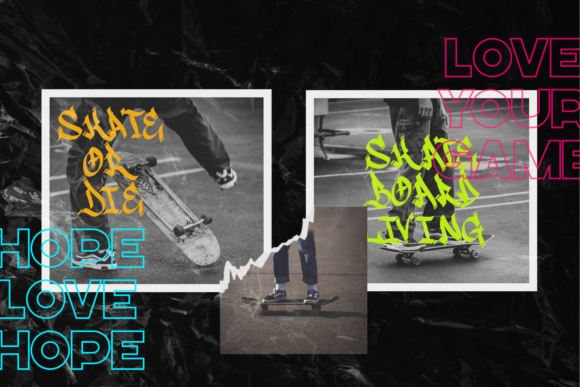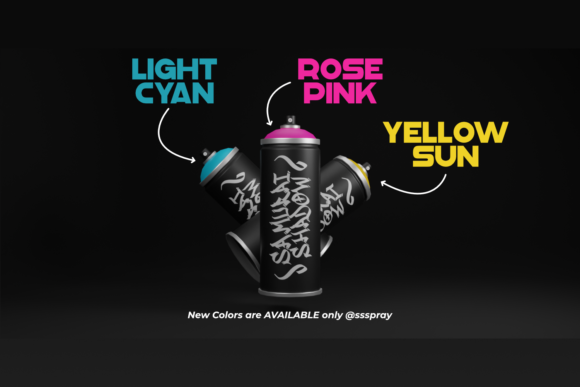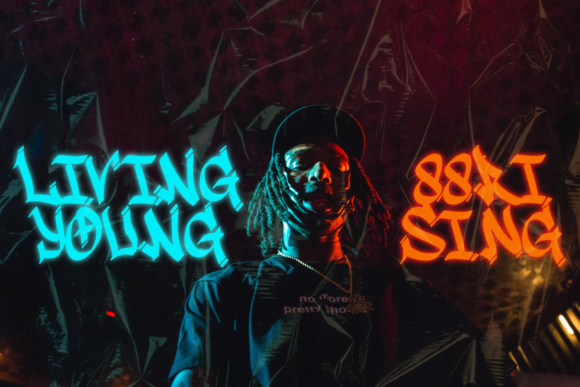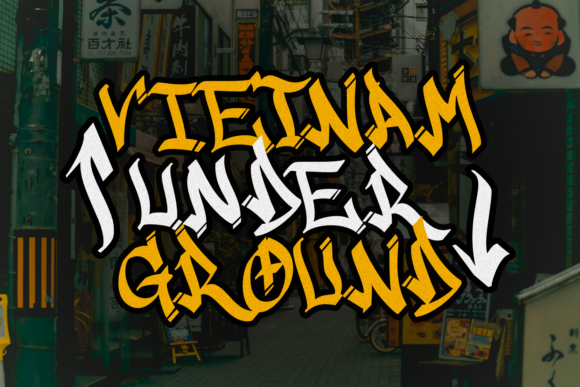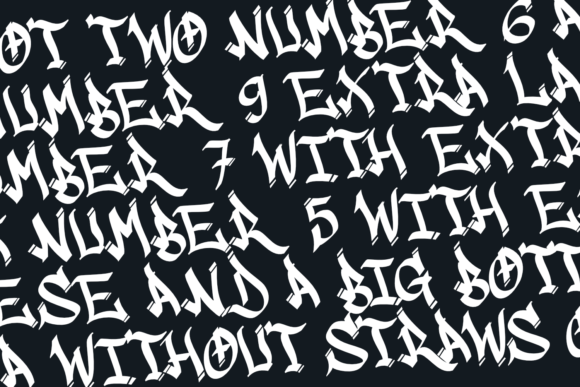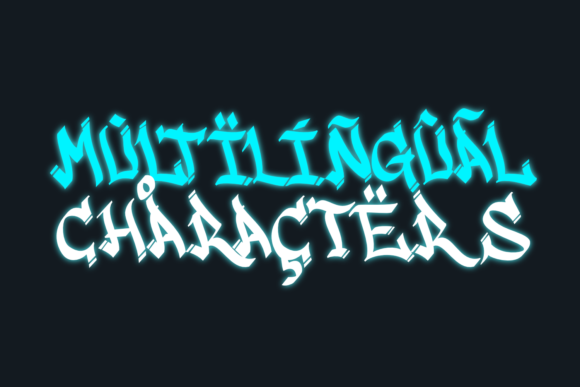
Introducing Bigwogs Font: The Ultimate Graffiti Styled Display Font
Are you tired of using the same old fonts for your designs? Look no further! Bigwogs Font is here to revolutionize your creative projects with its cool and fun graffiti styled display font. Whether you’re a designer, crafter, or simply someone who loves to get creative, Bigwogs is the perfect addition to your font collection.
What is Bigwogs Font?
Bigwogs is a unique and eye-catching font that is perfect for making a statement. Its graffiti styled design gives it a fun and playful vibe that’s sure to grab attention. The font is highly versatile and can be used for a wide range of projects, from digital designs to handmade crafts.
Bigwogs Font is a dream come true for designers and crafters alike. Its bold and edgy design makes it perfect for:
- Crafting: Add a personal touch to your handmade crafts, such as cards, scrapbook pages, and journal entries.
- Digital designing: Use Bigwogs to create stunning graphics, posters, and social media posts that are sure to stand out.
- Presentations: Add some excitement to your presentations with Bigwogs’ bold and eye-catching design.
- Greeting cards making: Create one-of-a-kind greeting cards that will leave a lasting impression.
Key Features of Bigwogs Font
So, what makes Bigwogs Font so special? Here are just a few of its key features:
- Graffiti styled design: Bigwogs’ unique design gives it a fun and playful vibe that’s sure to grab attention.
- Highly versatile: Use Bigwogs for a wide range of projects, from digital designs to handmade crafts.
- Easy to read: Despite its bold design, Bigwogs is surprisingly easy to read, making it perfect for use in a variety of contexts.
Tips for Using Bigwogs Font
Now that you’ve got Bigwogs Font, here are a few tips for getting the most out of it:
- Experiment with colors: Bigwogs looks great in a variety of colors, so don’t be afraid to get creative and try out different color schemes.
- Mix and match: Combine Bigwogs with other fonts to create unique and eye-catching designs.
- Use it sparingly: Bigwogs is a bold font, so use it sparingly to avoid overwhelming your design.
In conclusion, Bigwogs Font is a must-have for designers and crafters looking to add a little excitement to their projects. Its unique graffiti styled design, versatility, and ease of use make it the perfect addition to any font collection. So why wait? Download Bigwogs Font today and start creating stunning designs that are sure to grab attention!